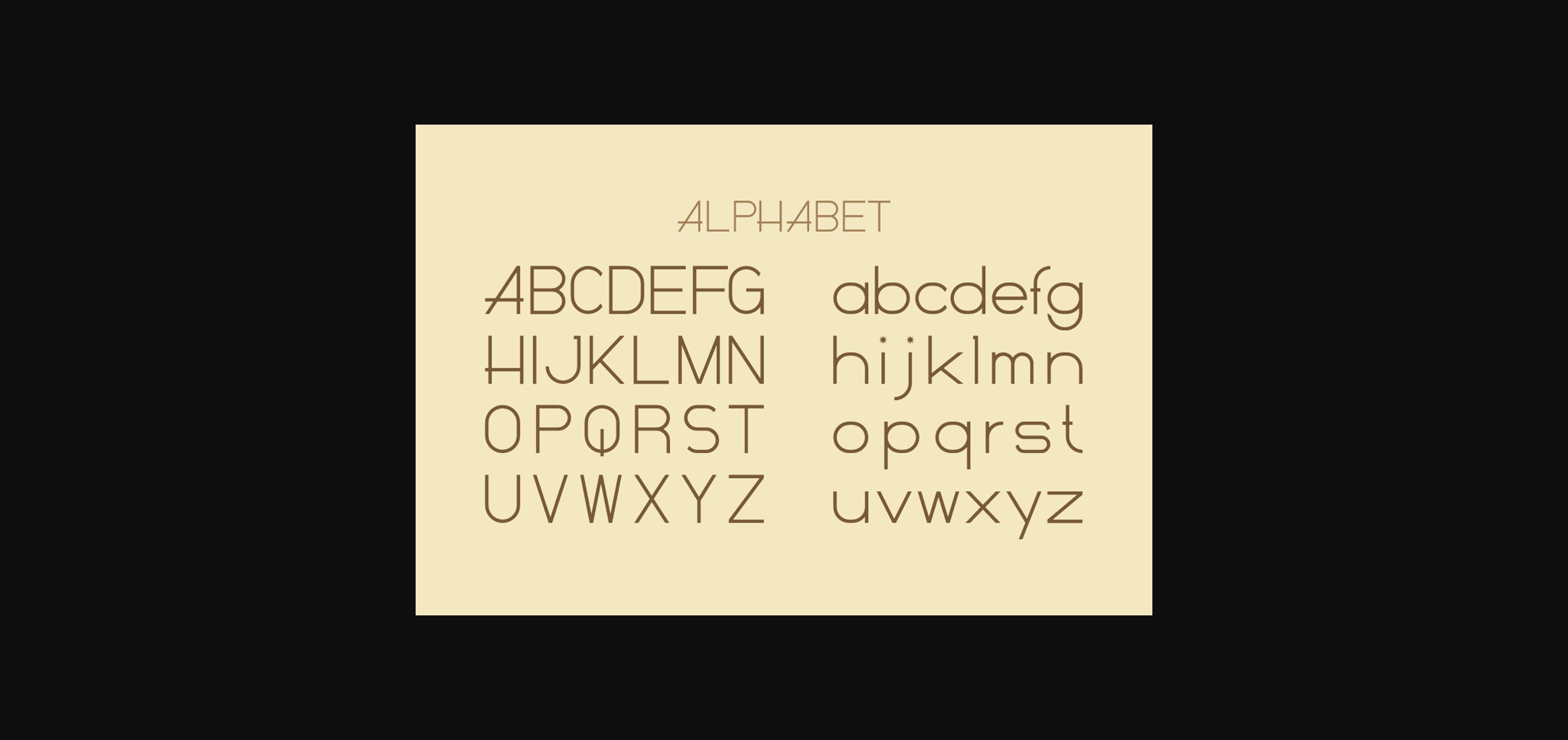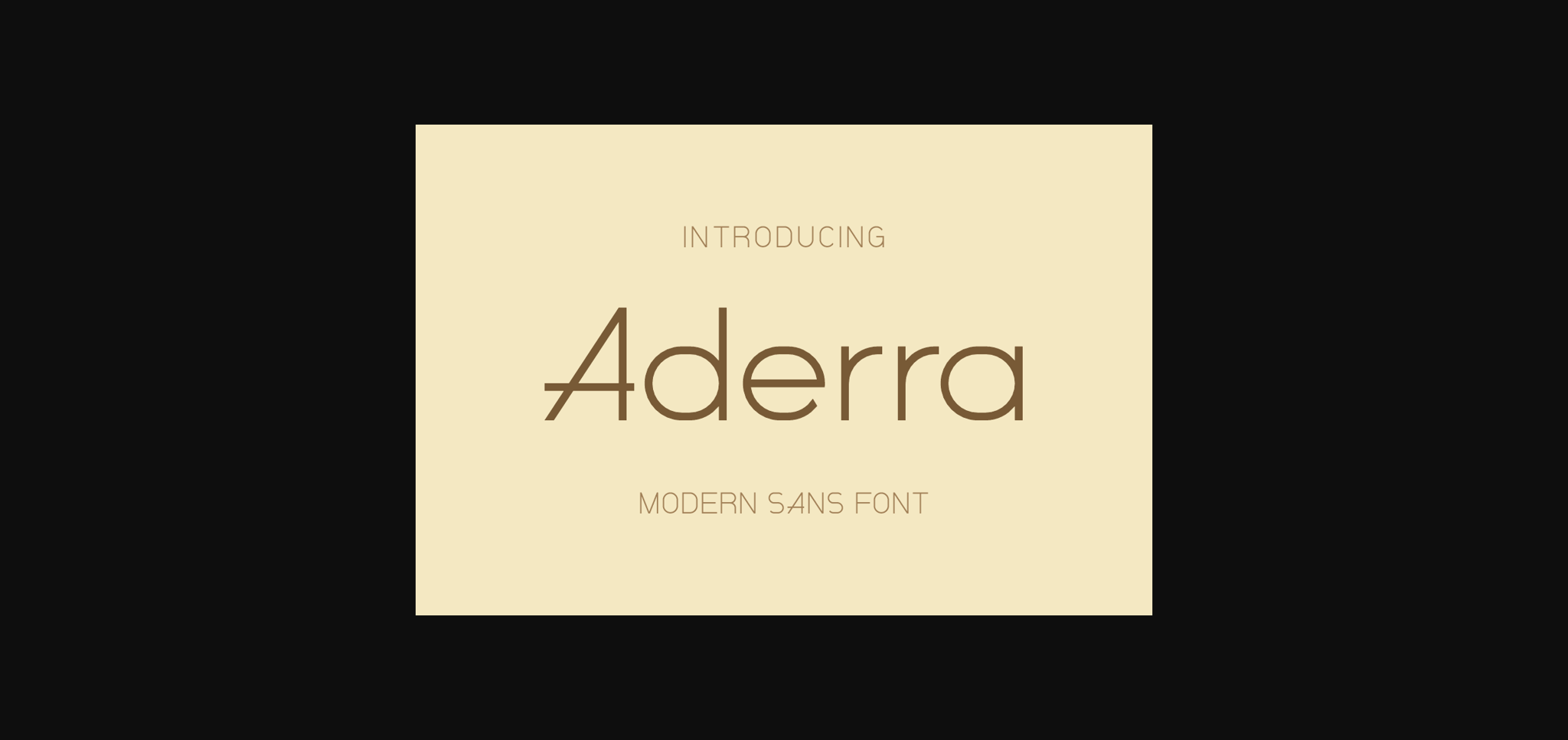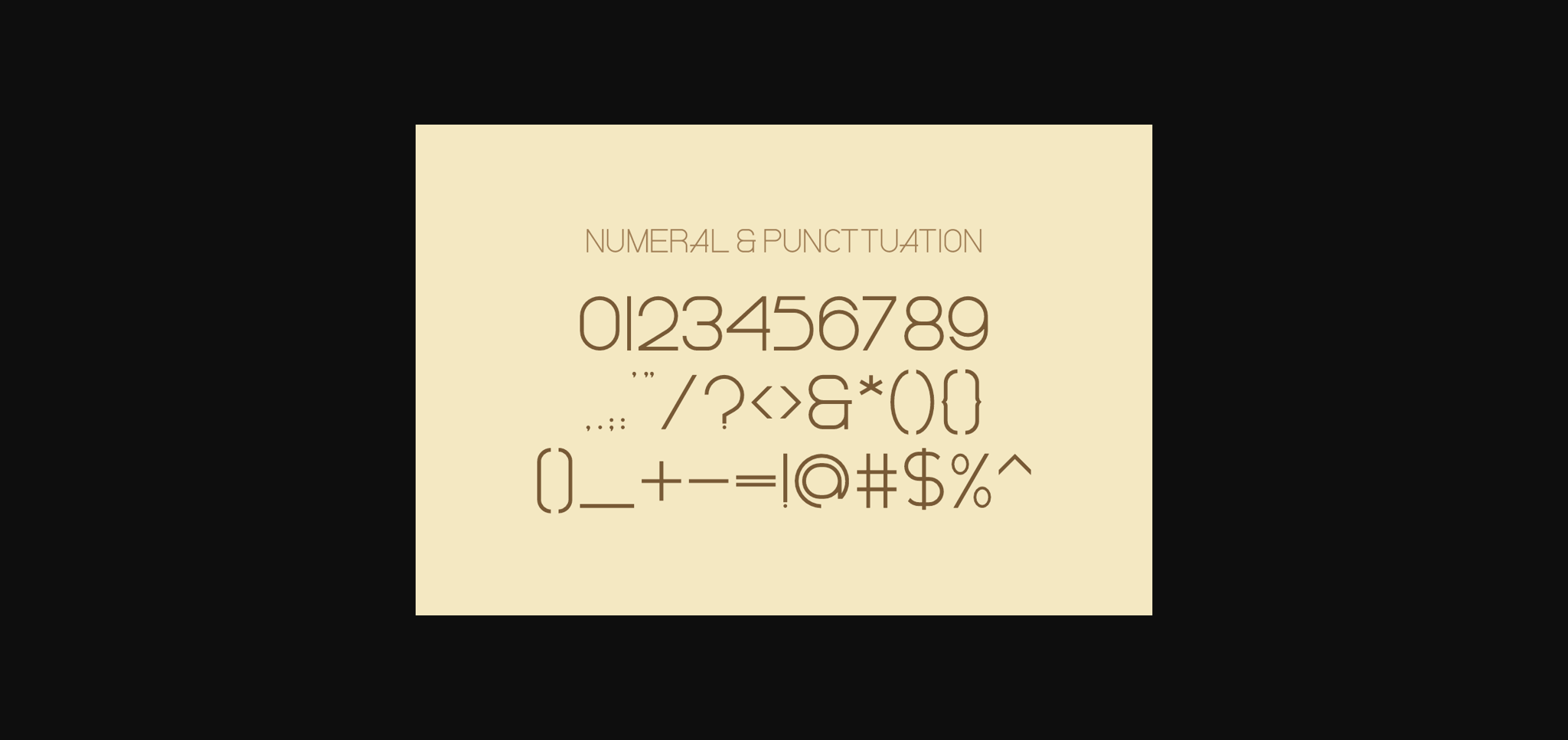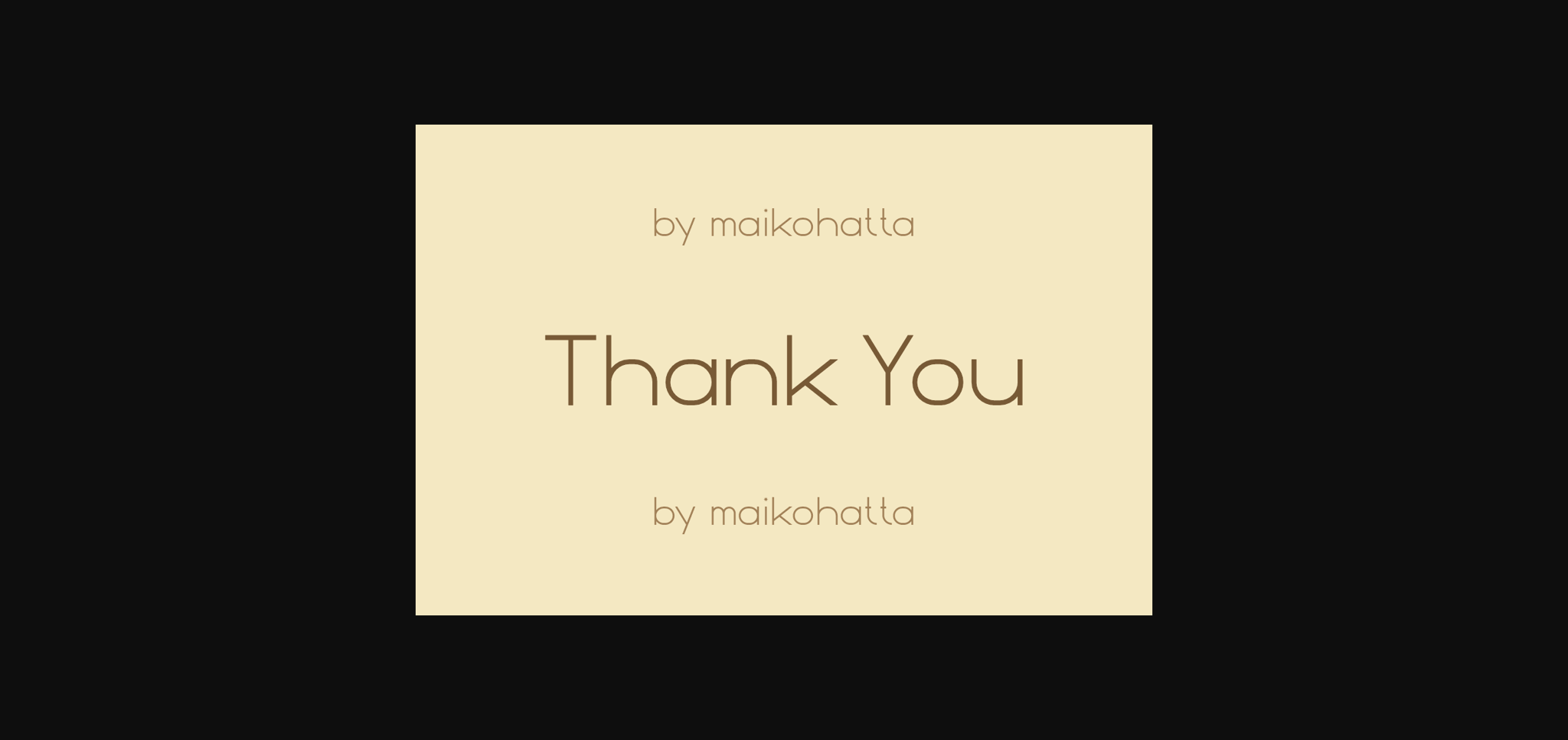
Aderra Font
About Aderra Font
Aderra is a cool and modern sans serif font. Whatever the topic, this font will be a wonderful asset to your font library, as it has the potential to enhance any creation.